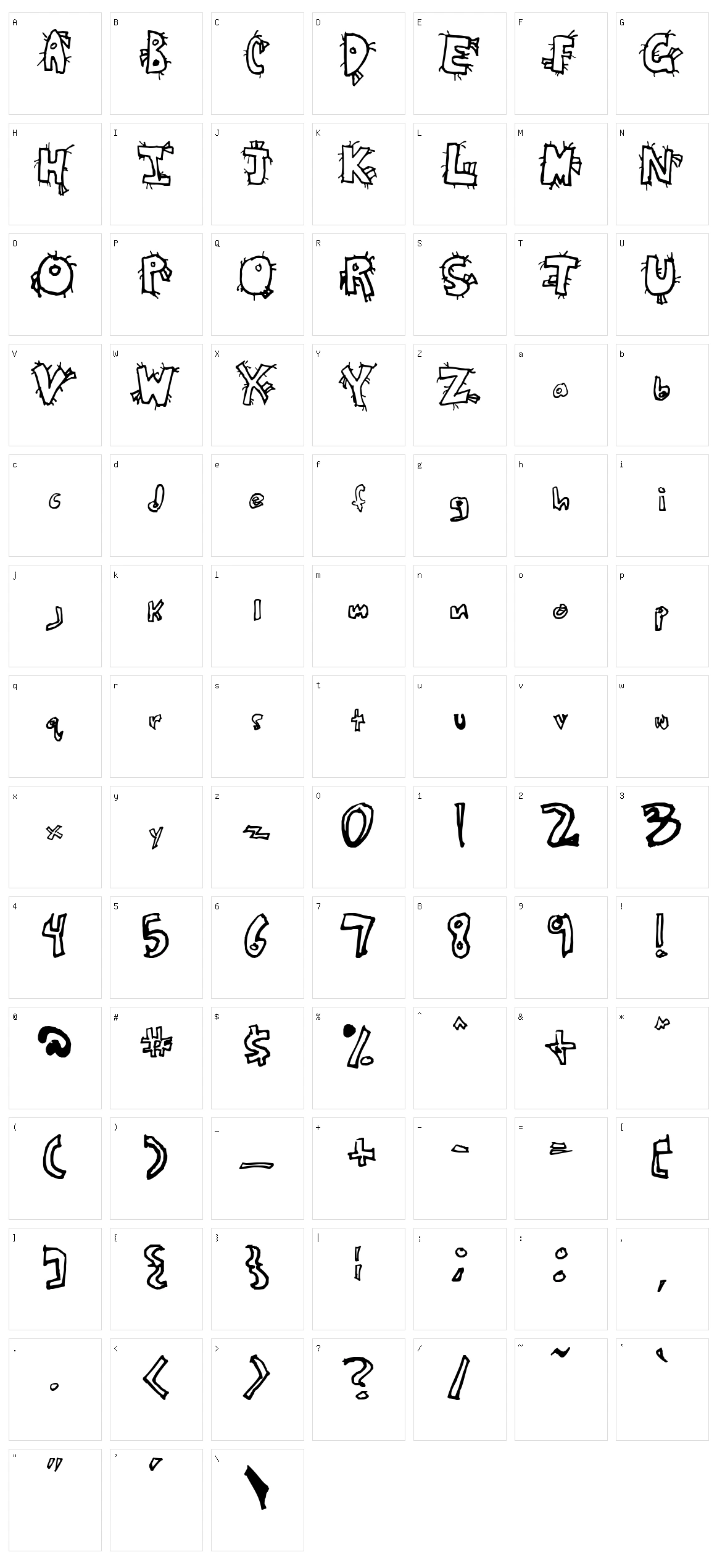
The free font Crazy Beaver is carefully designed by Shawn Westphal, showcasing a thoughtful balance of creativity and usability and falls under the Cartoon font style. When you download the ZIP file, it contains only 74.58 KB of font files, making it lightweight and quick to download. Please review the license details below to understand permitted usage and distribution rights. If license information is not available, we recommend using this font for personal projects only or contacting the author directly for commercial usage permissions.